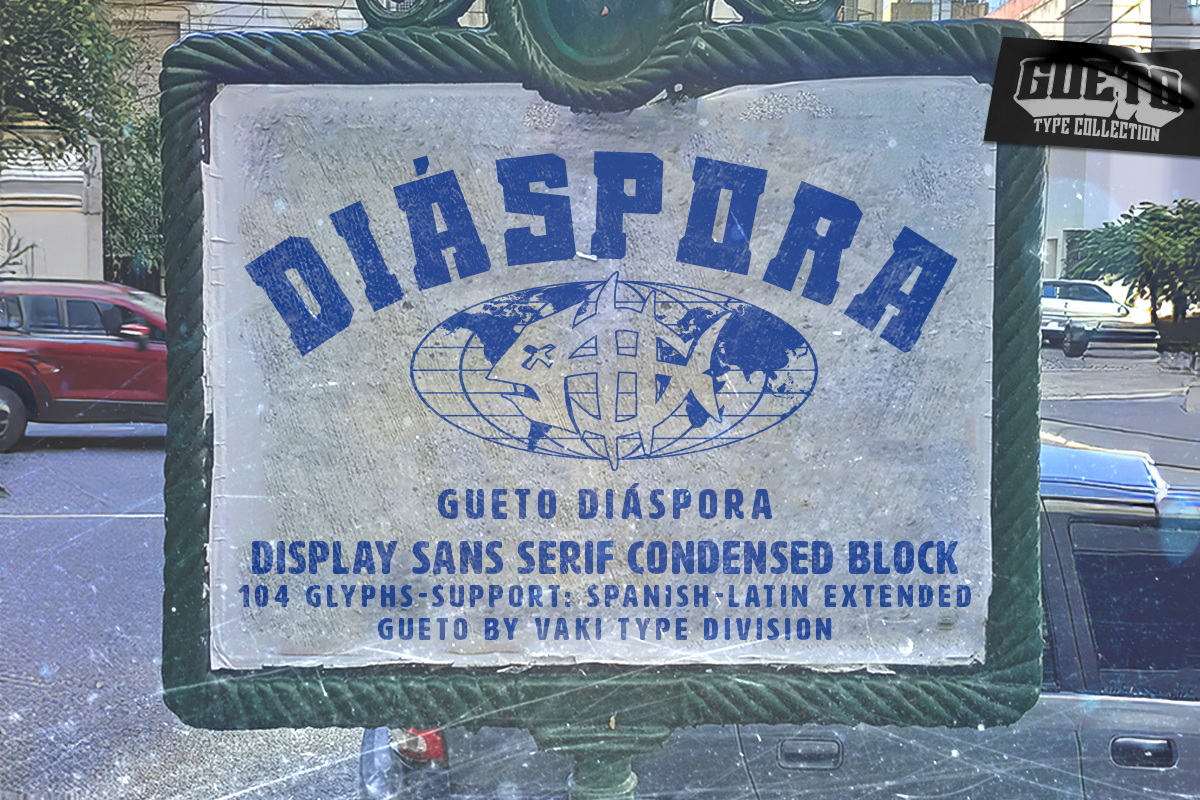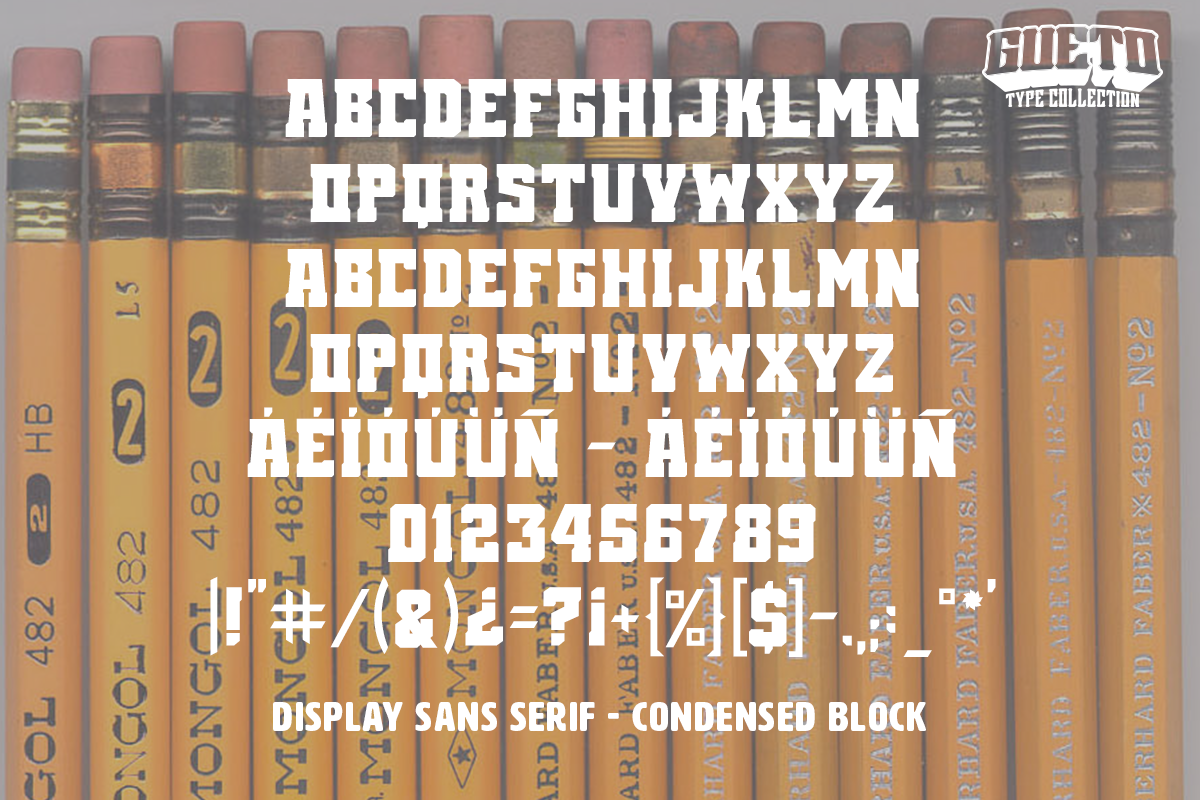
DIÁSPORA
DÍASPORA is the typeface of those who left but never disconnected. A varsity display font with emotional weight, representing memory, displacement and belonging.
Technical Details:
Style: Display Sans Serif · Condensed Block / Varsity
Glyphs: 104 · All Caps
Support: Spanish-Latin Extended
Recommended use: Identity‑driven branding, cultural campaigns, institutional communication
GUETO Underground Varsity Type System by Vaki. A typographic system built from underground academic aesthetics, social tension and identity-driven visual language.